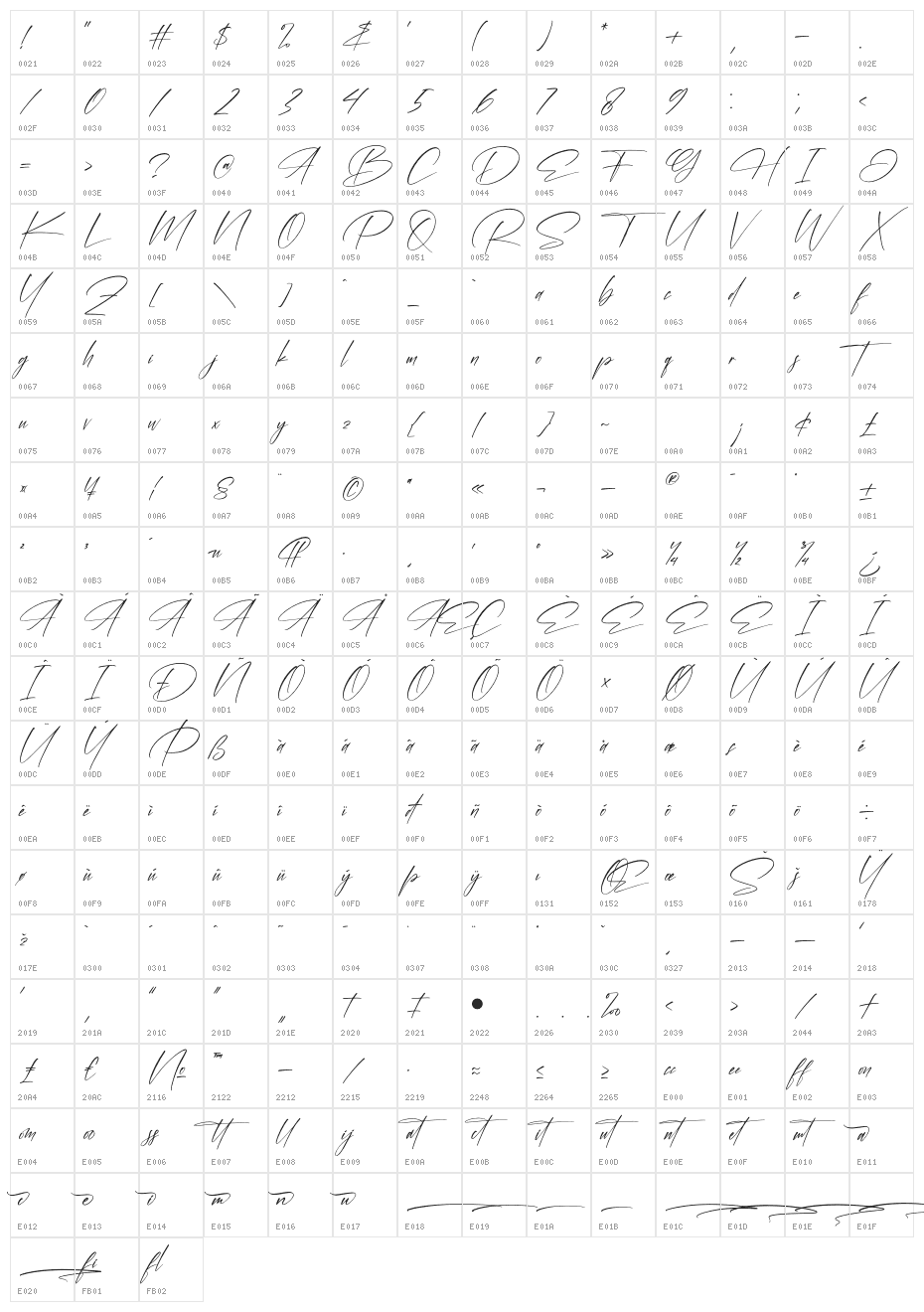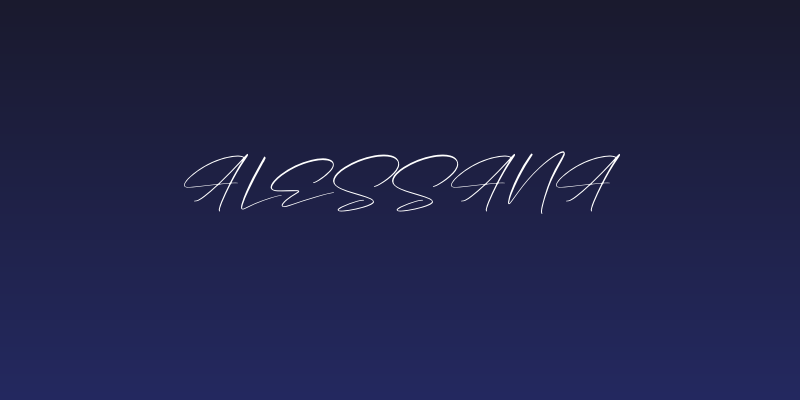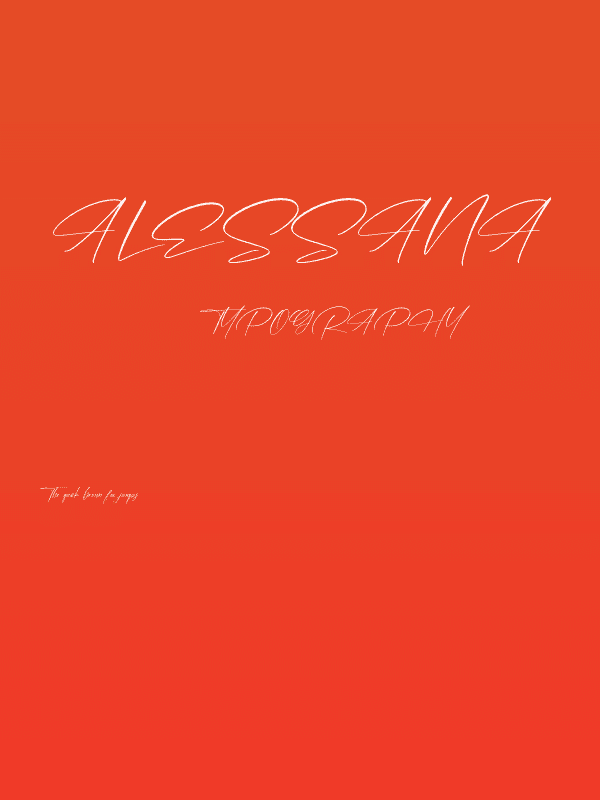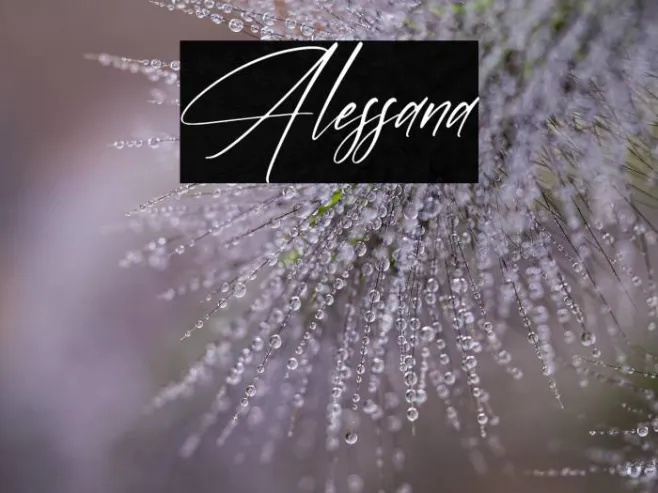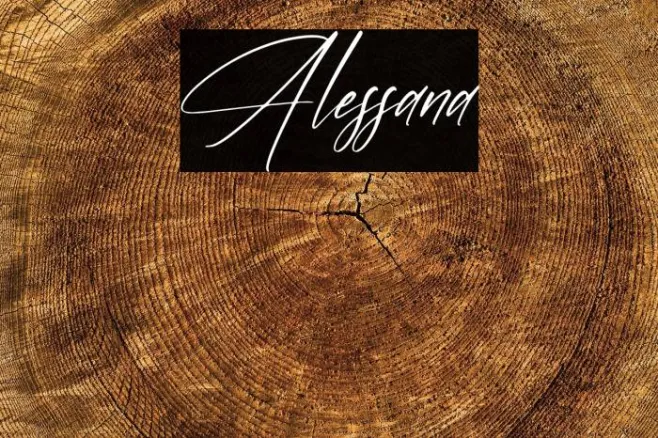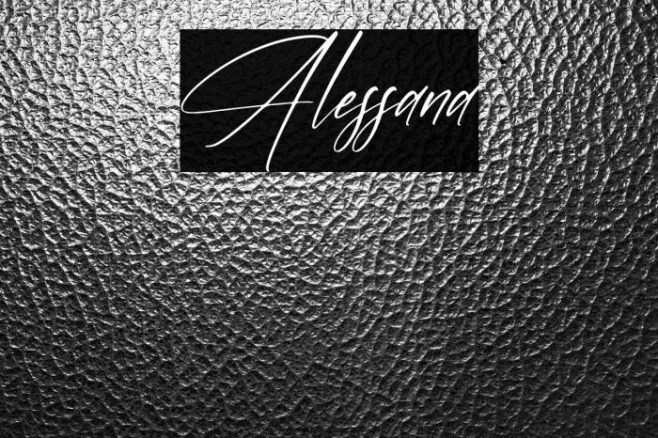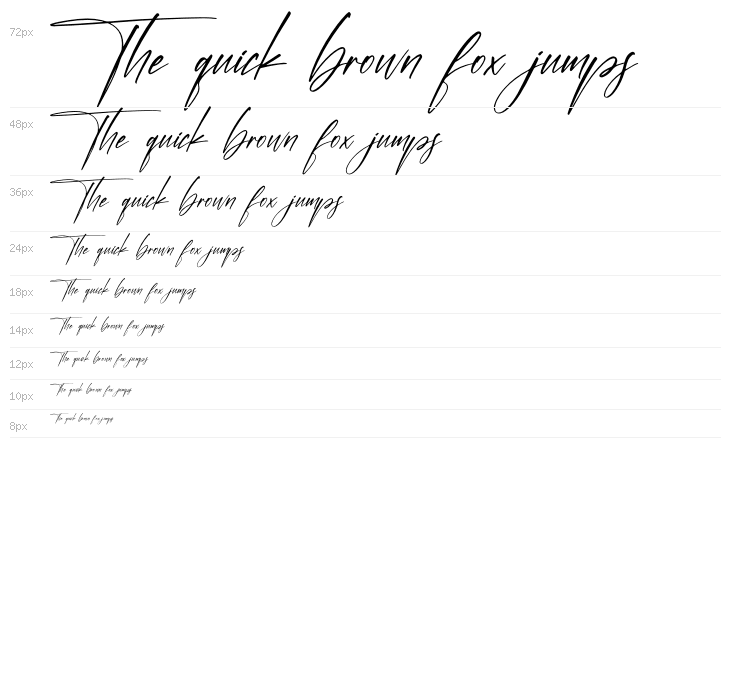
Alessana Font
Alessana Description
This font features a dynamic and elegant script style with a handwritten appearance. The uppercase letters are elongated and fluid, giving a sense of motion and sophistication. The lowercase letters maintain a consistent flow, with some characters extending below the baseline, adding to its artistic flair. Numbers and special characters follow the same fluid and cursive style, ensuring uniformity across all glyphs. The overall design is both modern and classic, making it versatile for various design needs.